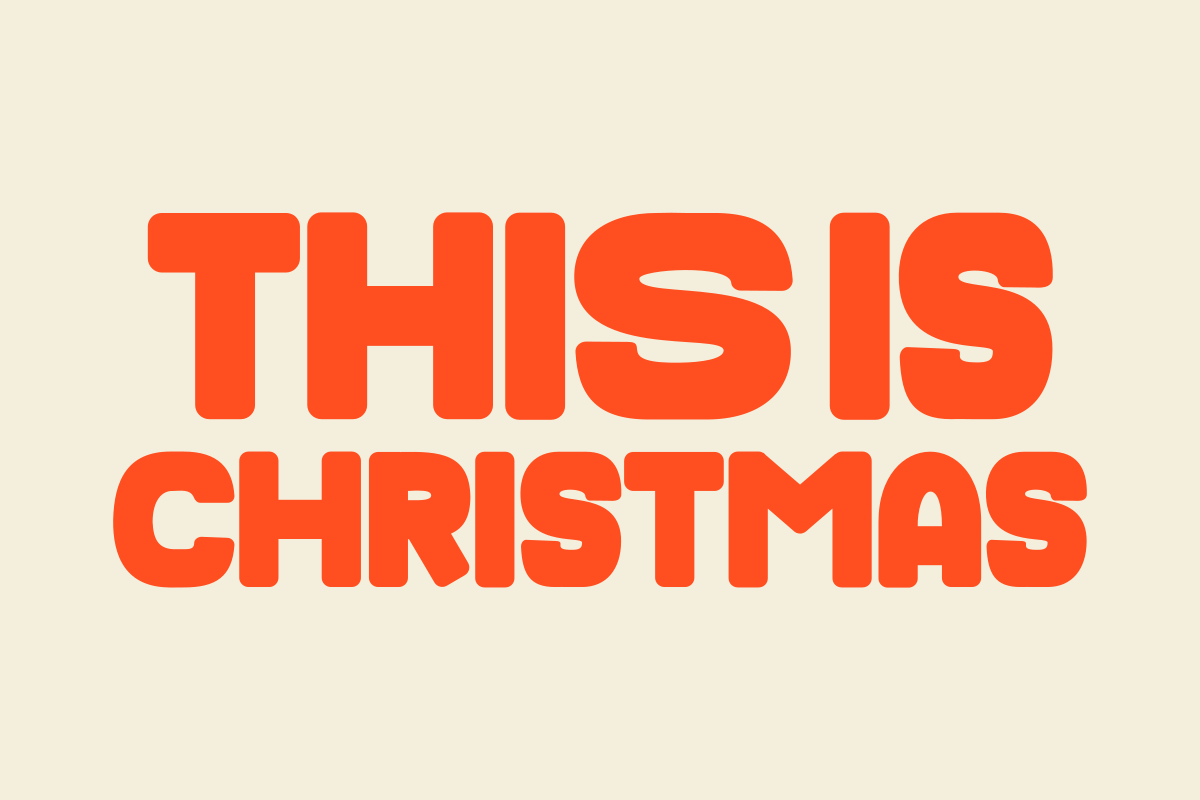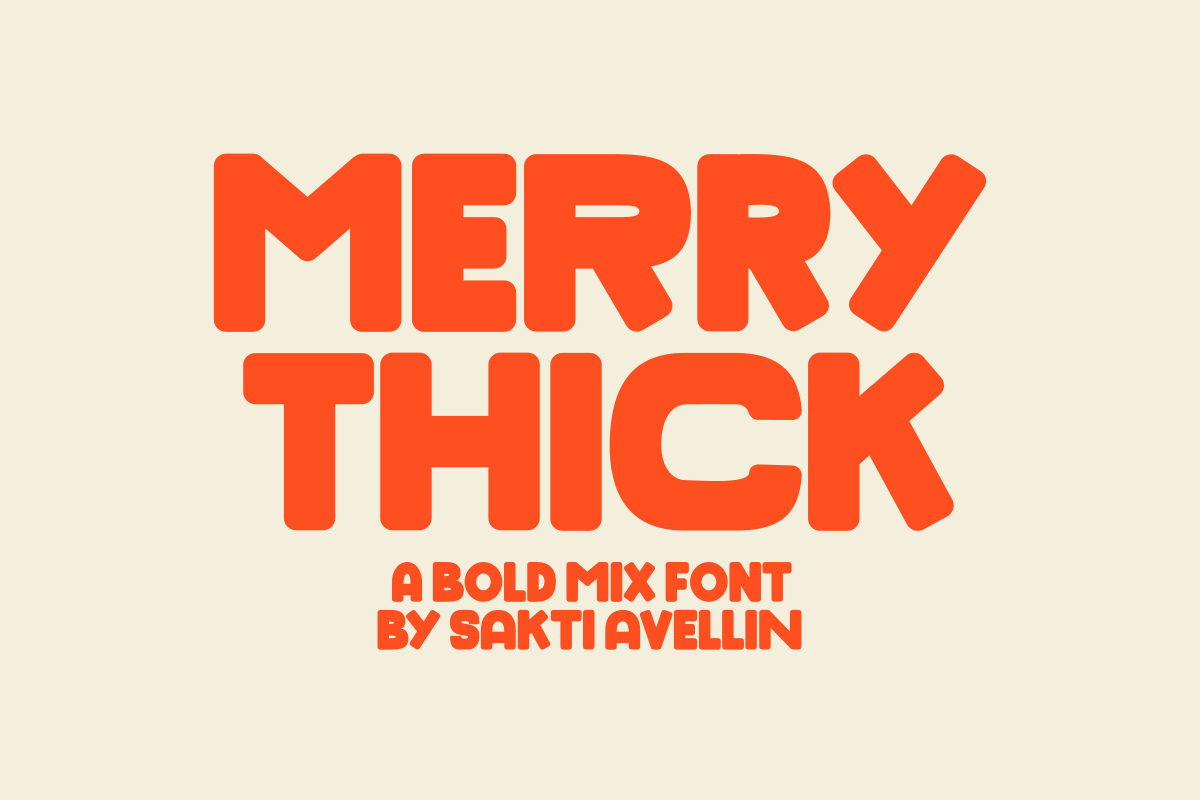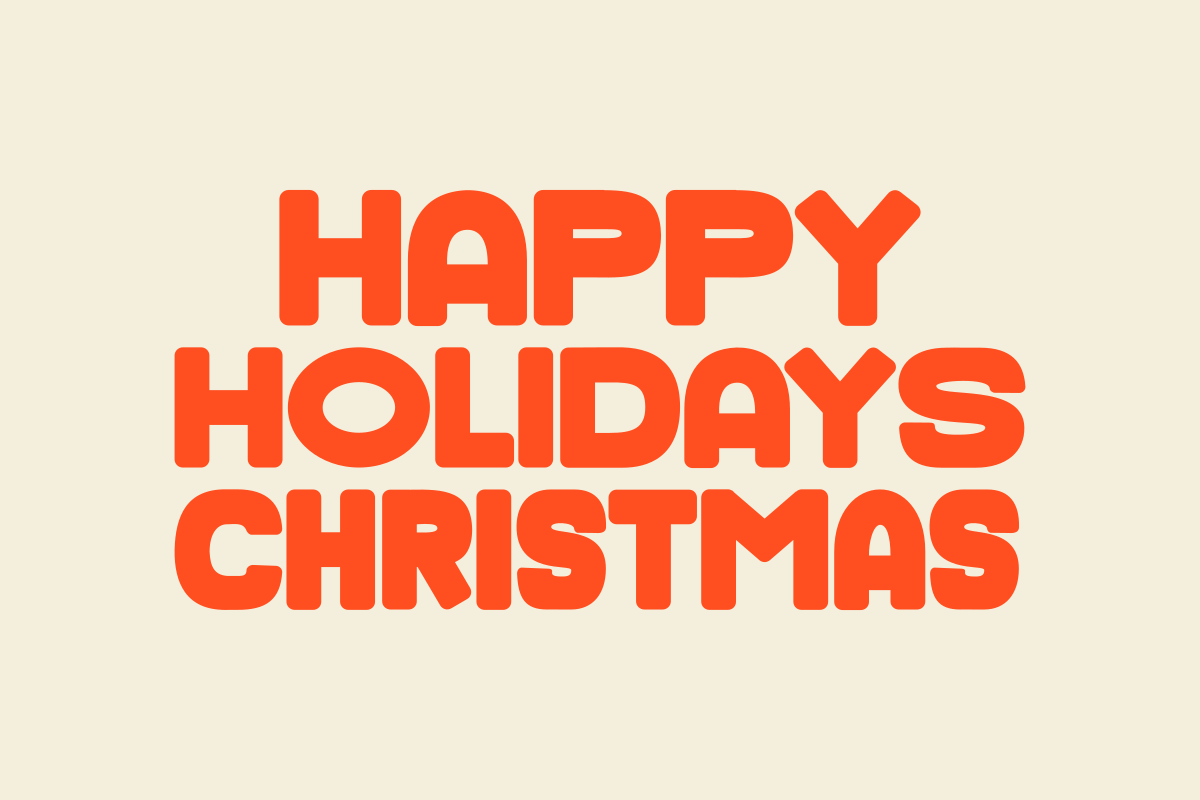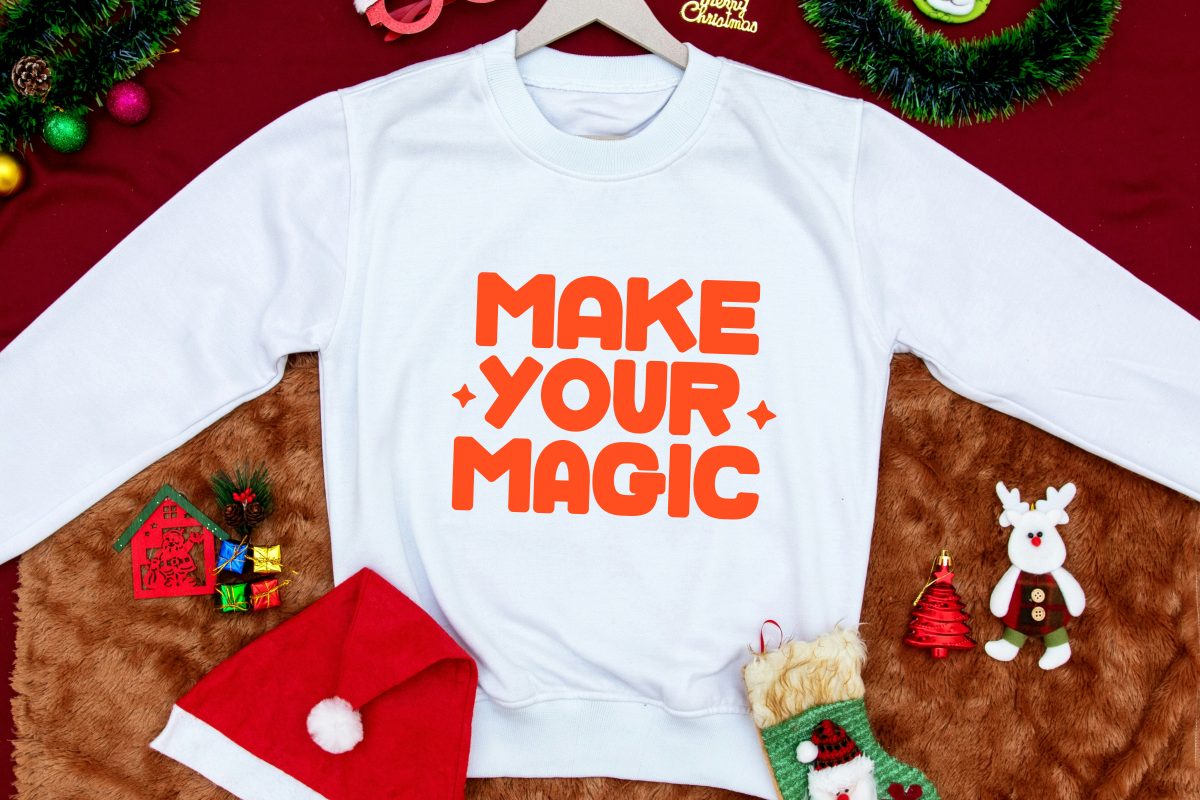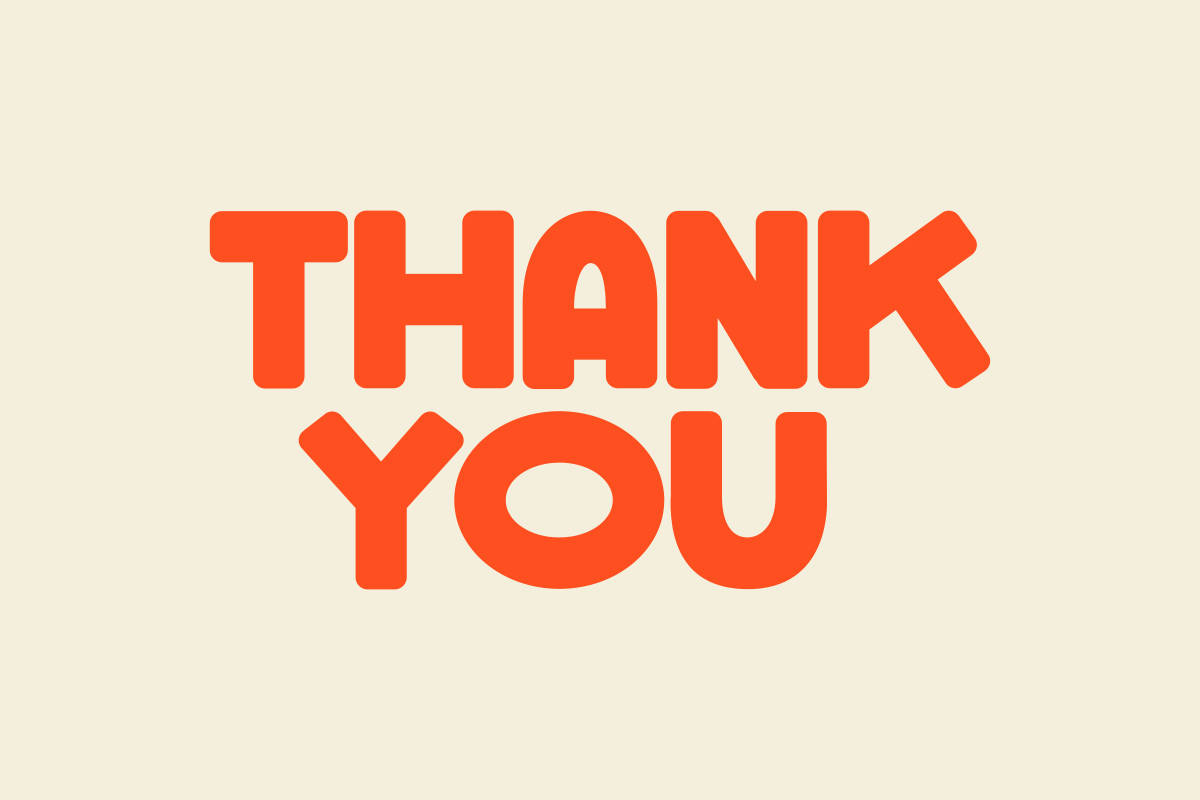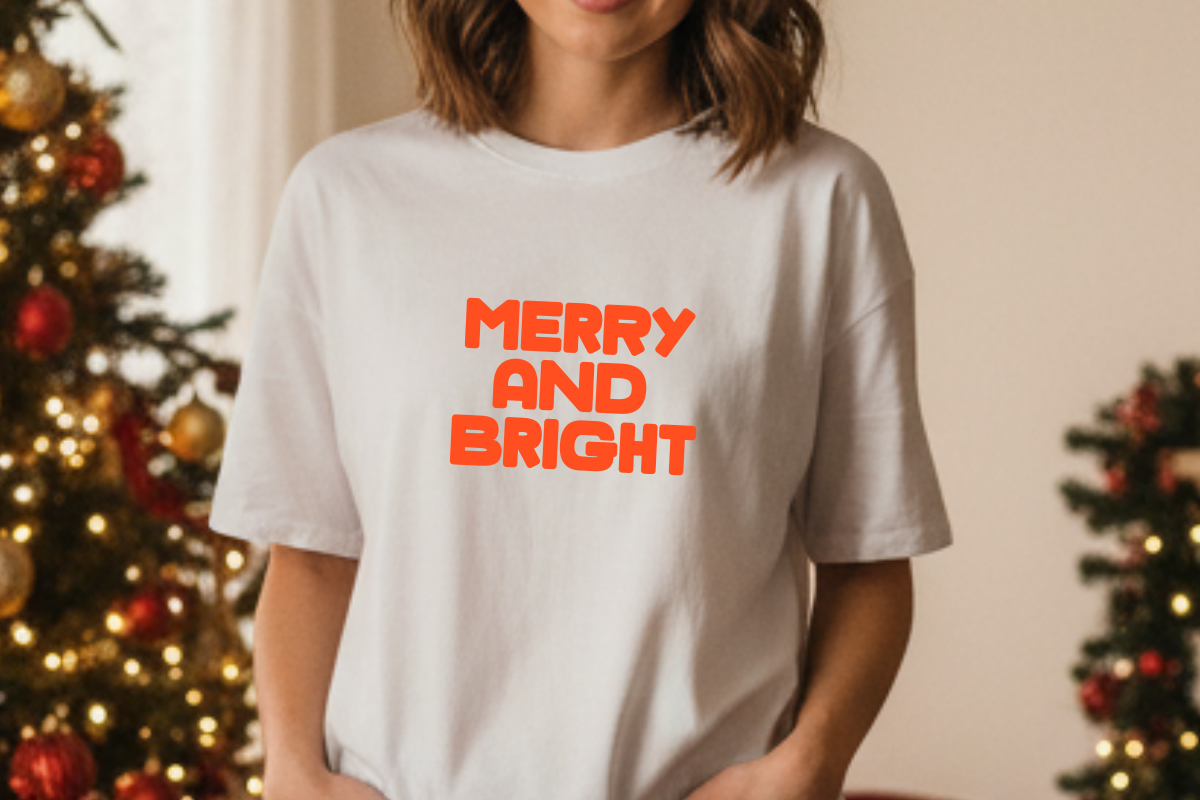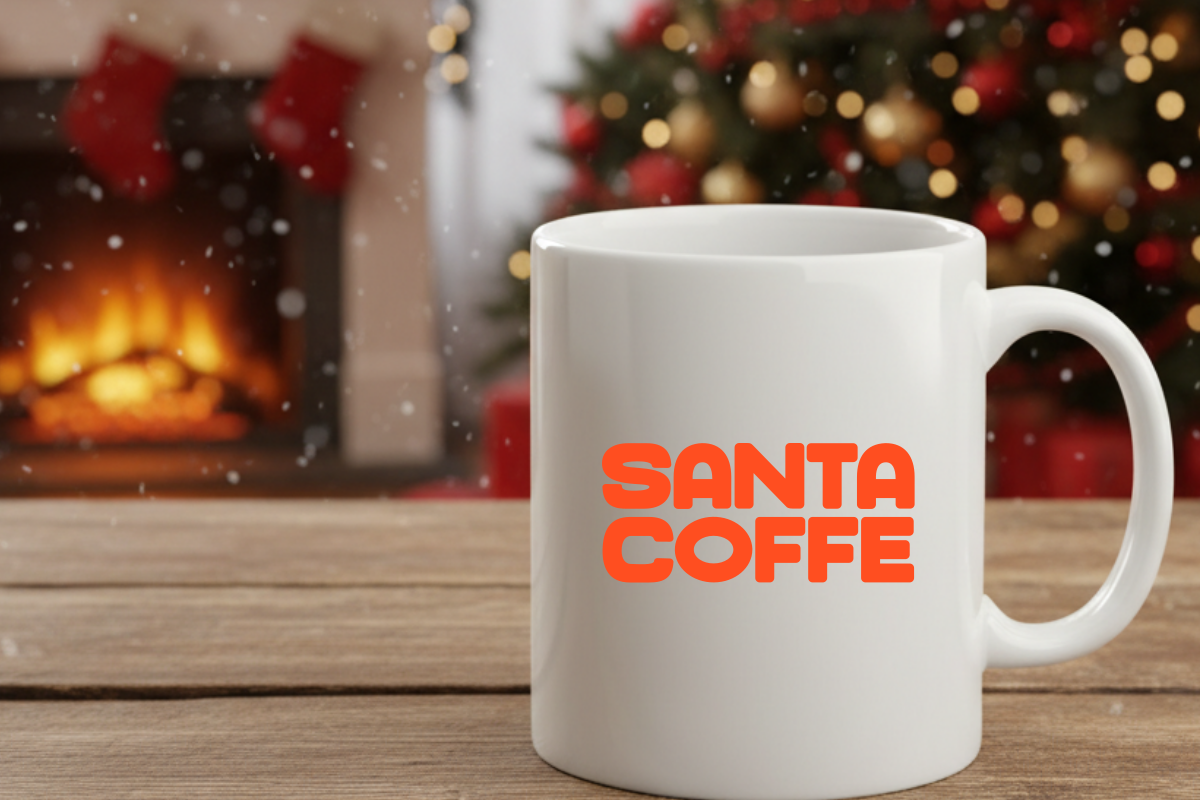
Merry Thick - Bold Mix Font
Merry Thick is a powerful, high-impact bold mix font designed by Sakti Avellin to bring a playful and energetic vibe to your creative projects. This chunky display typeface features thick, rounded letterforms with a unique "mixed" rhythm, making it an essential choice for impactful branding, modern t-shirt designs, catchy posters, and vibrant social media graphics. Its solid and approachable aesthetic ensures it stands out as a versatile decorative font for headlines and packaging, perfect for designers looking for a bold yet friendly character. Add a touch of modern, high-energy charm to your work with Merry Thick!